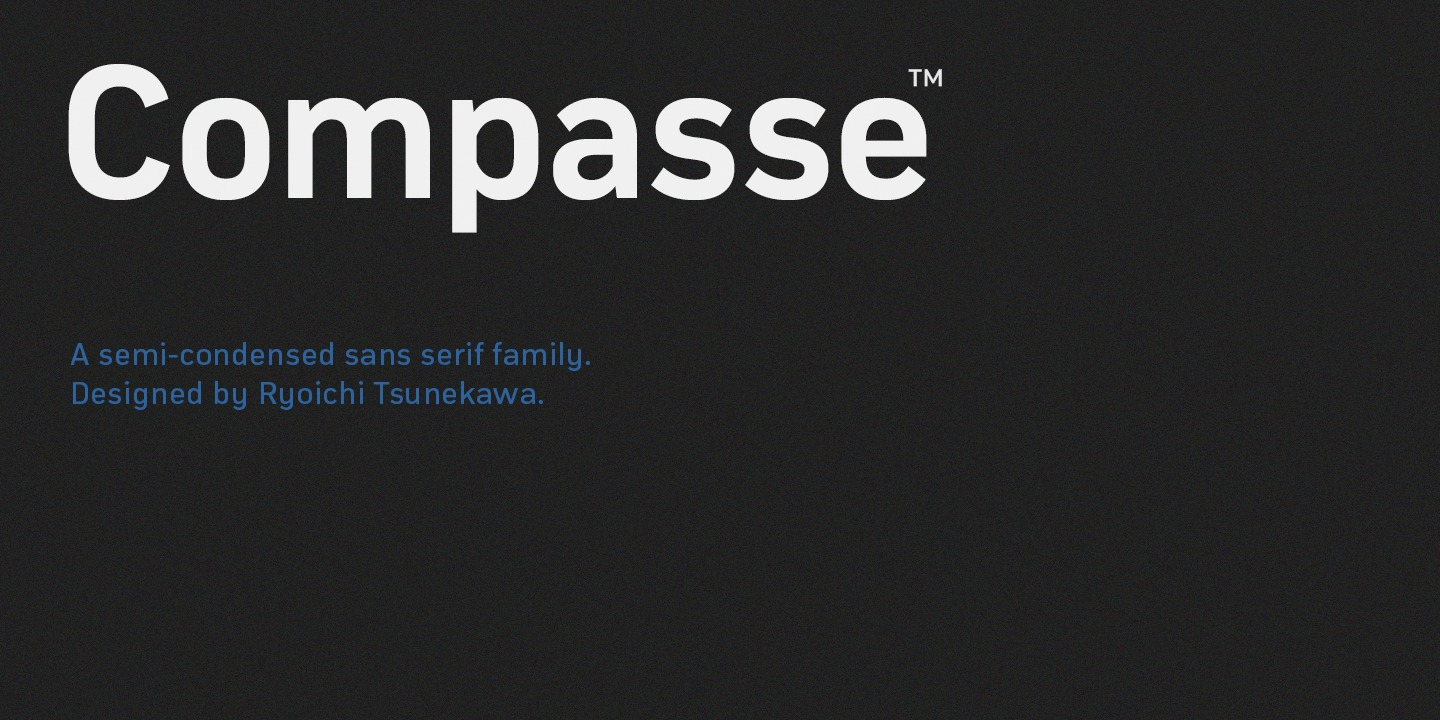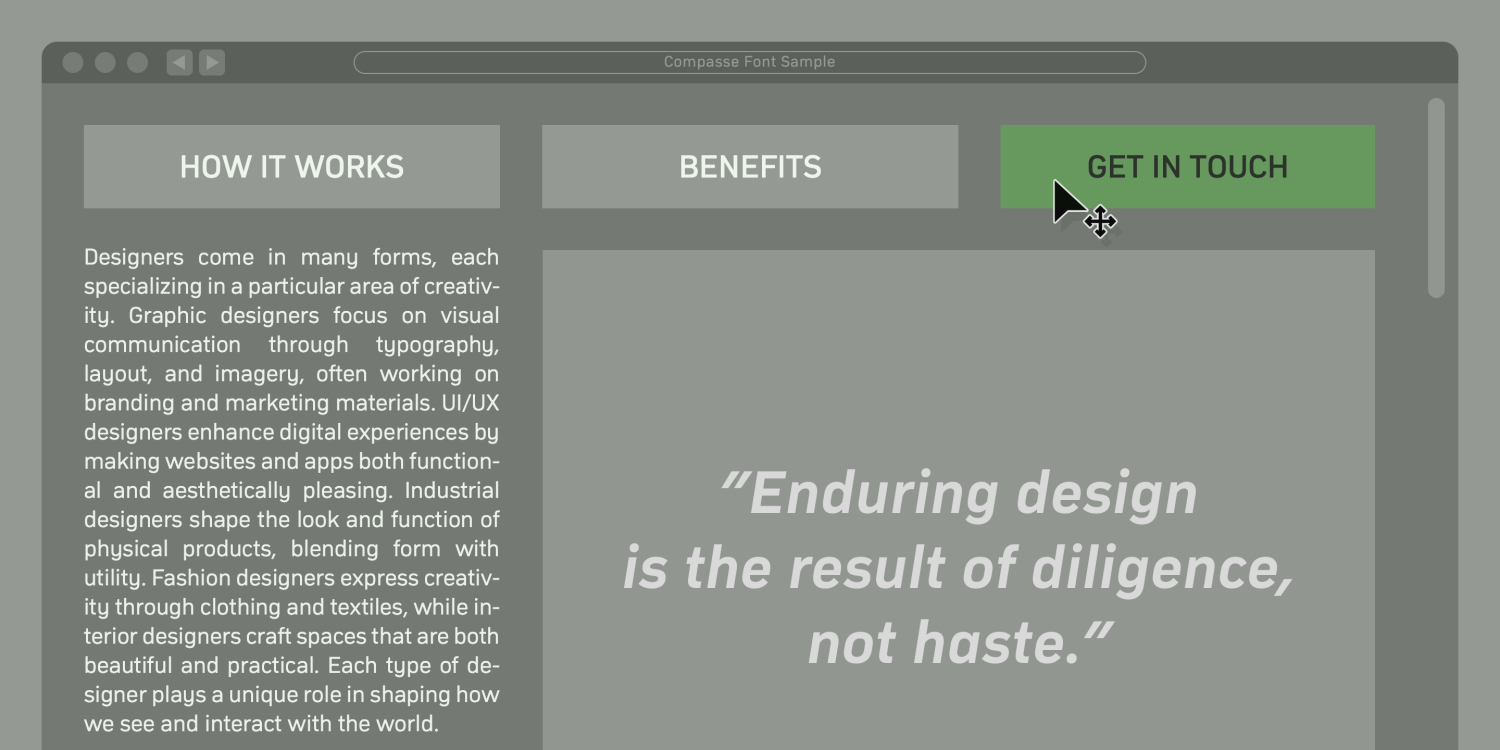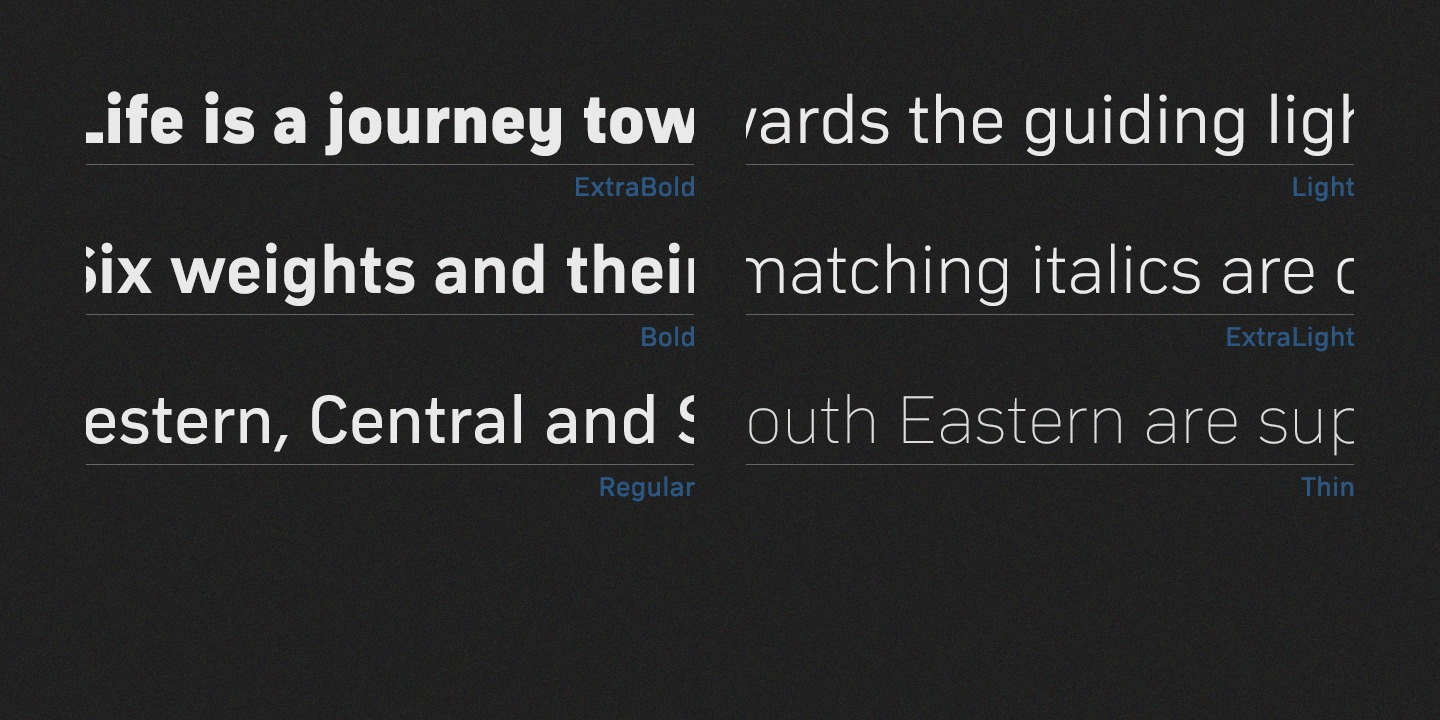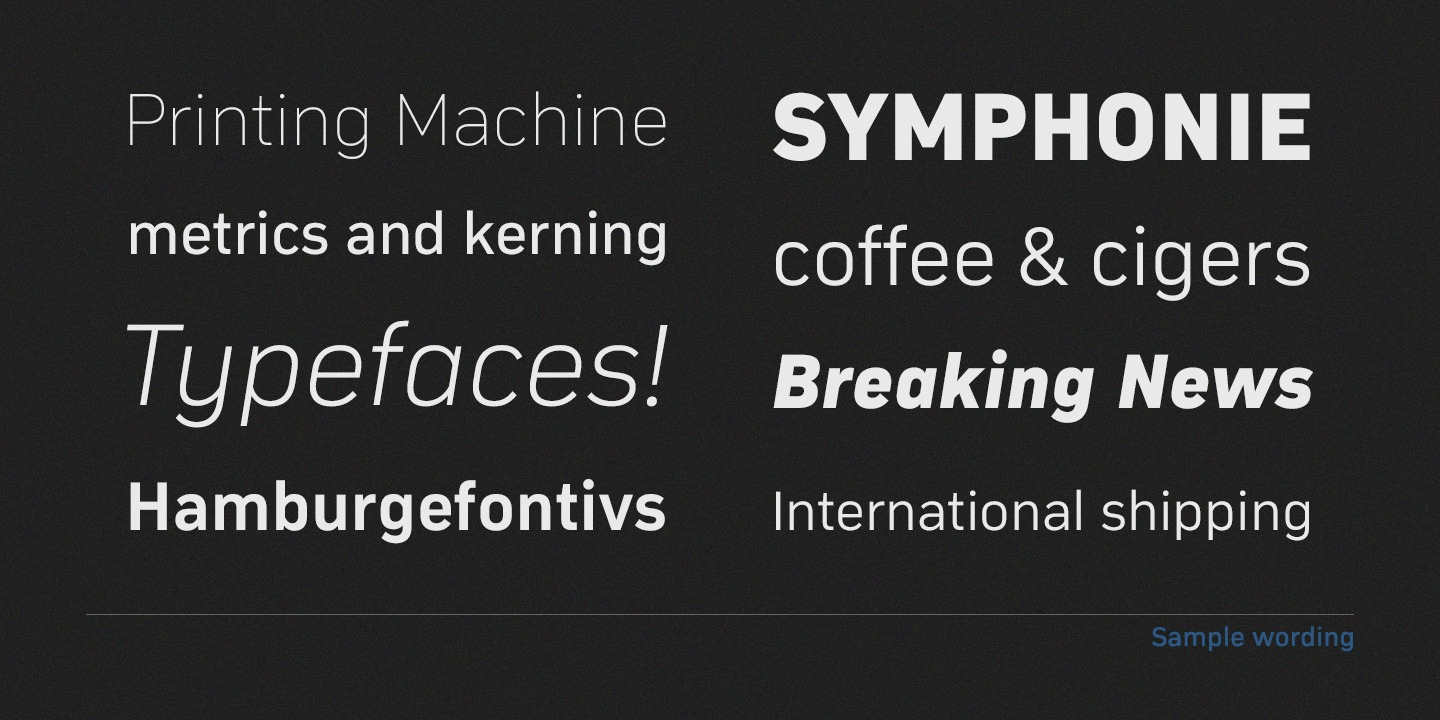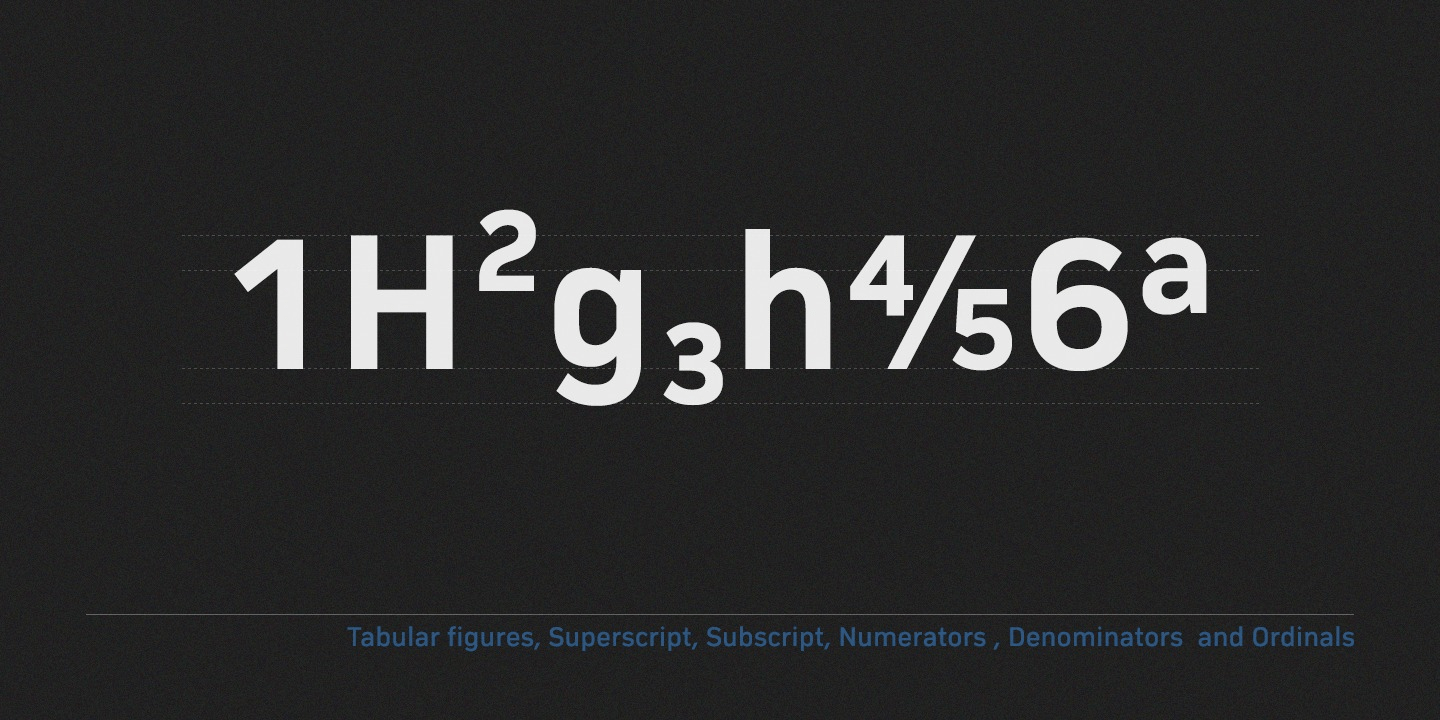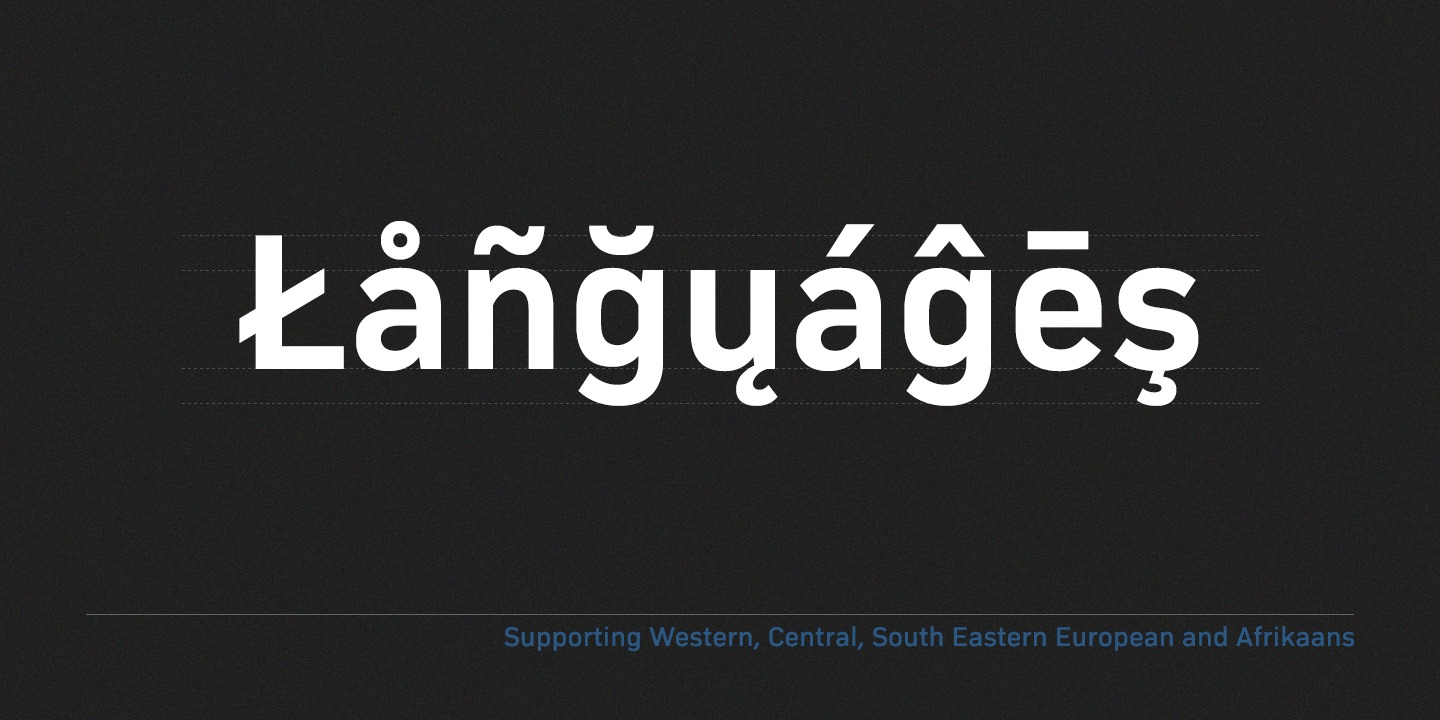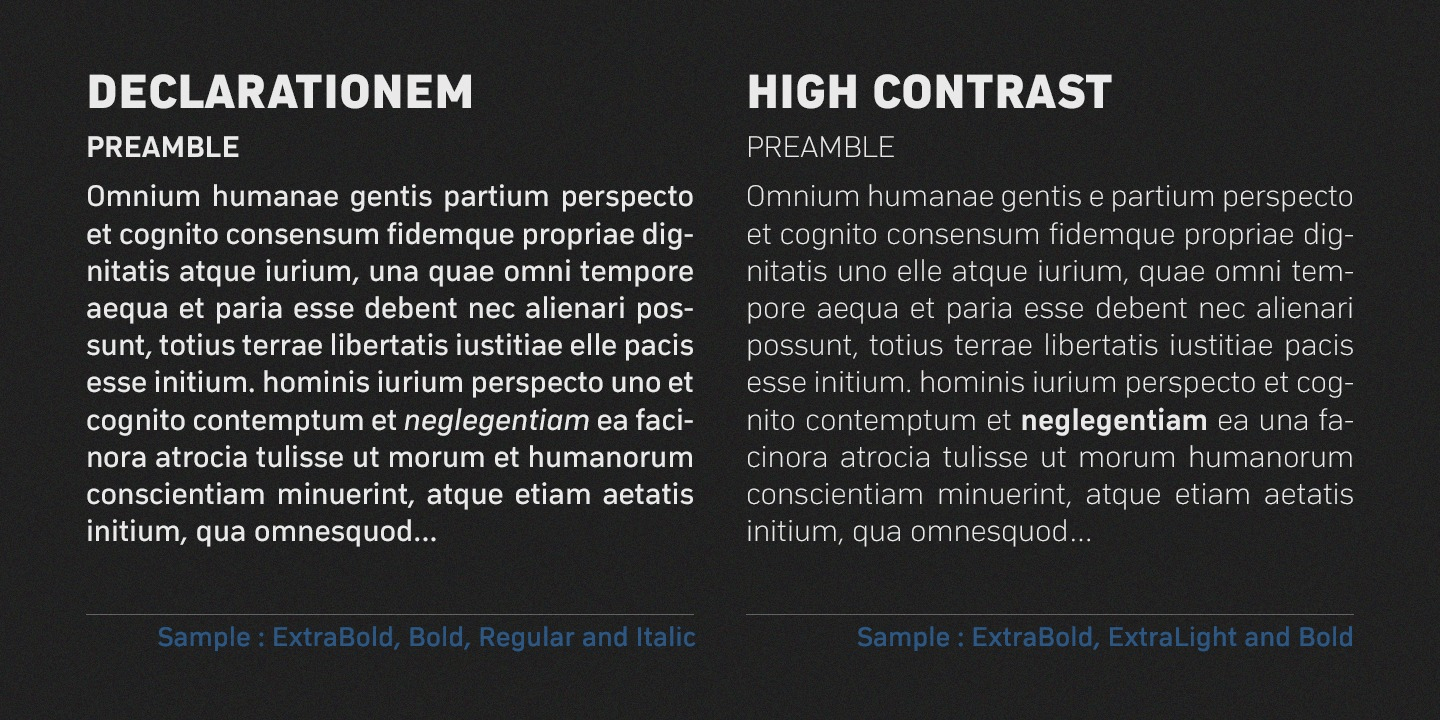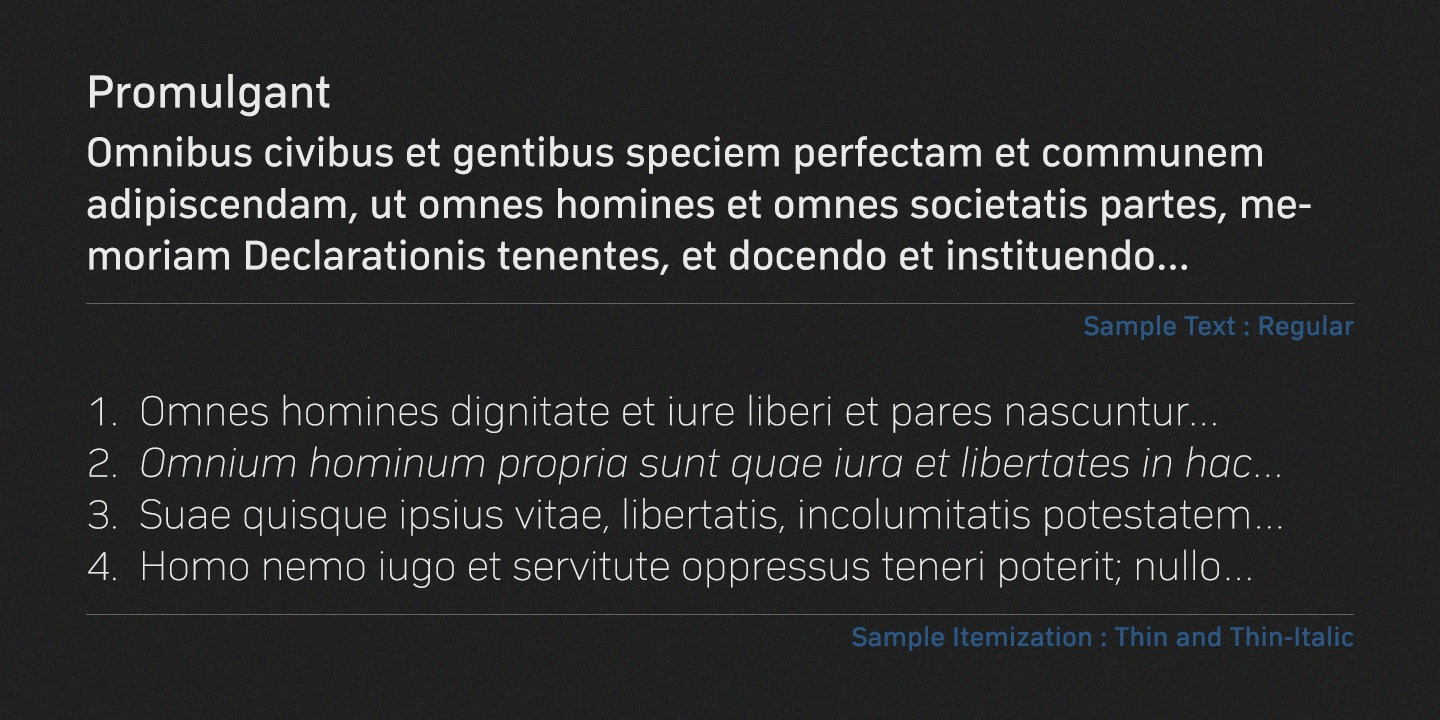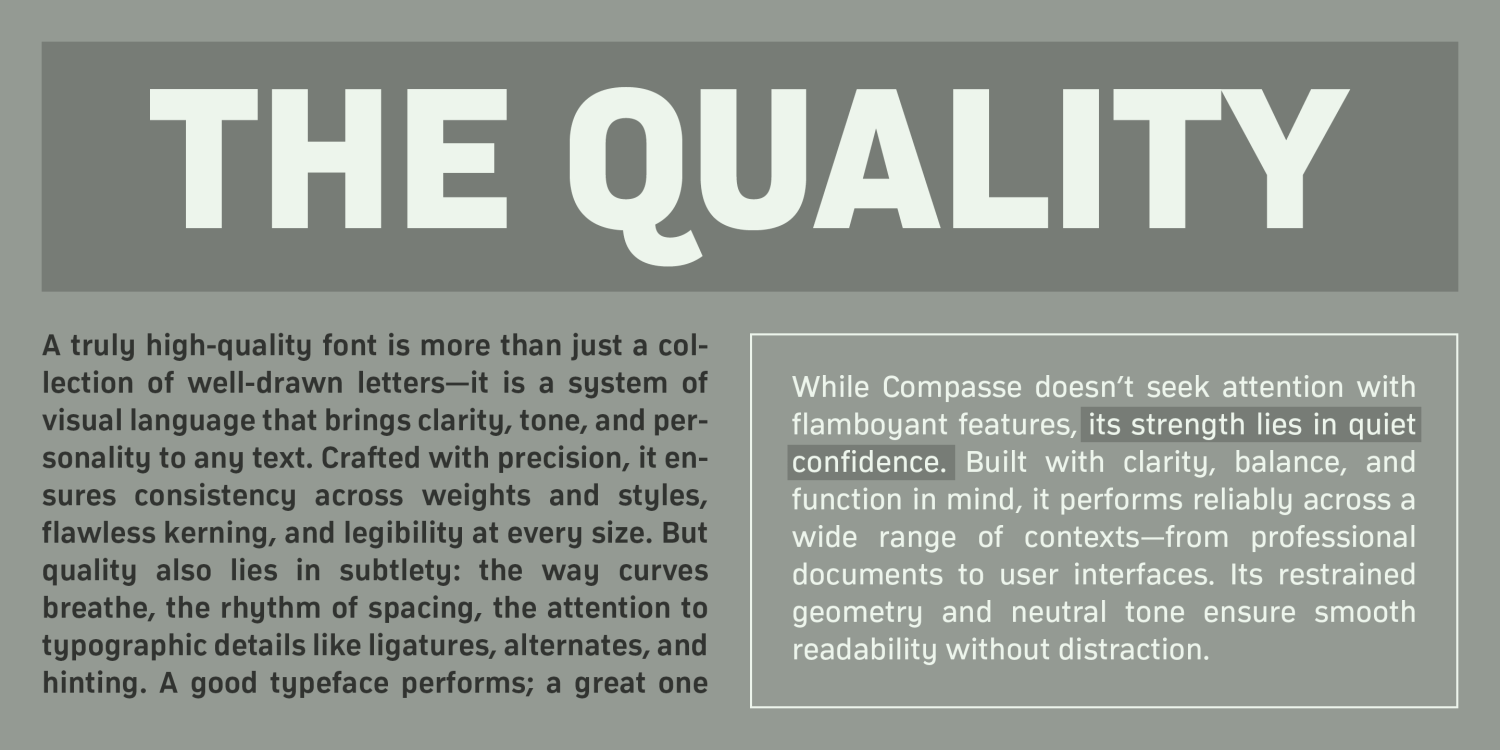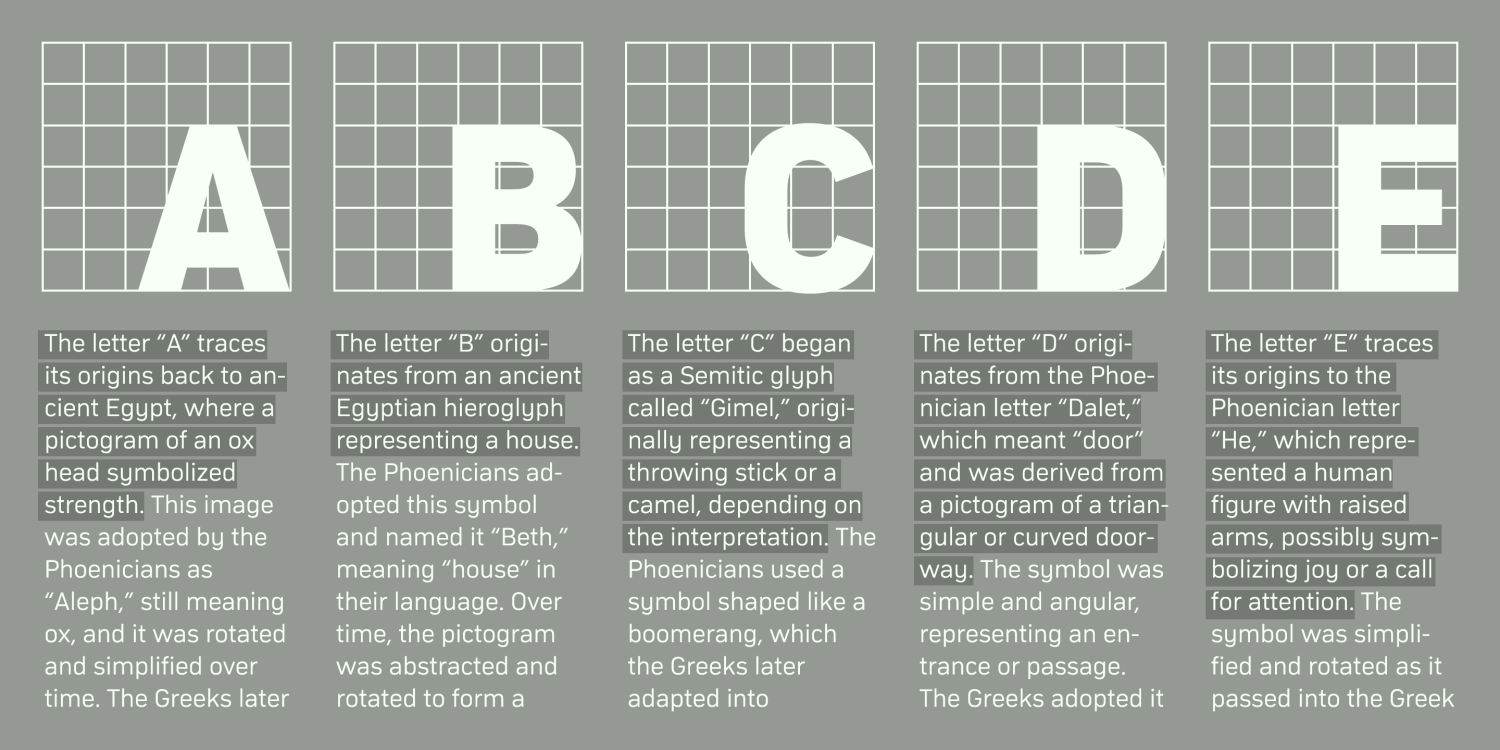
Compasse
Compasse is a semi-condensed sans-serif type family designed by Ryoichi Tsunekawa, consisting of 12 styles—six weights from Thin to ExtraBold, each with matching italics.
The wide range of styles offers excellent flexibility for titles, headlines, and body text, while the large x-height ensures strong legibility and readability across sizes.
Unlike overly modular designs, Compasse was developed with a semi-modular approach, guided by the designer’s experience and intuition.
This results in letterforms that feel balanced, natural, and refined, avoiding the rigidity often associated with purely modular type.
With its sophisticated structure and neutral, universal design, Compasse is suitable for use across all media and purposes, from editorial to digital and corporate branding.
It supports a wide range of European languages, including Western, Central, and South Eastern European languages, as well as Afrikaans.
OpenType features provide access to superior and inferior figures, denominators, numerators, and fractions, enabling advanced typographic control.